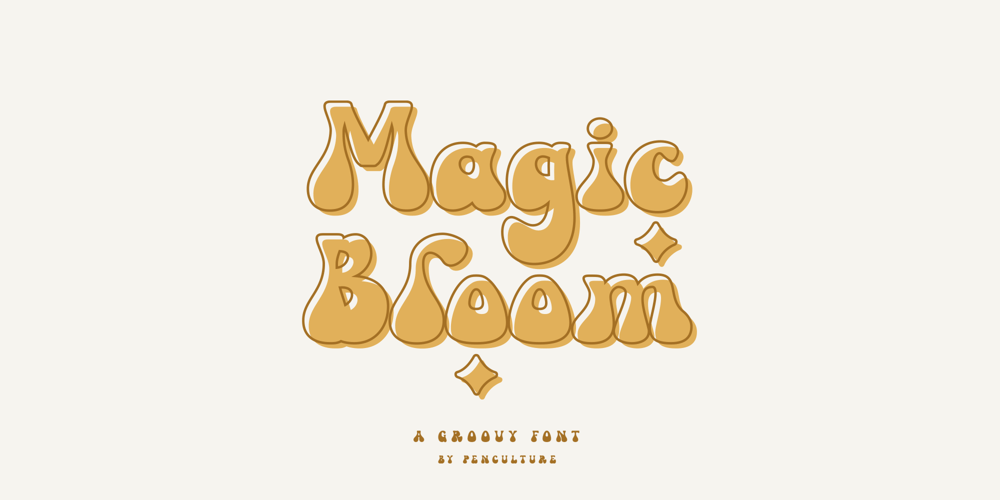
Magic Bloom
Magic Bloom font
Magic Bloom Font Family was designed by Revo Farsiky and published by Pen Culture. Magic Bloom contains 1 styles and family package options. Proudly present our newest and lovely font in 2023 called Magic Bloom.This is a lovely and playful groovy font where you can feel it in every curve of the letters. This font is equipped with full uppercase and lowercase, number and punctuation, alternate and ligature.This font works well in both uppercase and lowercase, so you can use and create in a variety of projects.I really hope you enjoy it – please do let me know what you think, comments & likes are always hugely welcomed and appreciated. More importantly, please don’t hesitate to drop me a message if you have any issues or queries.Thank you